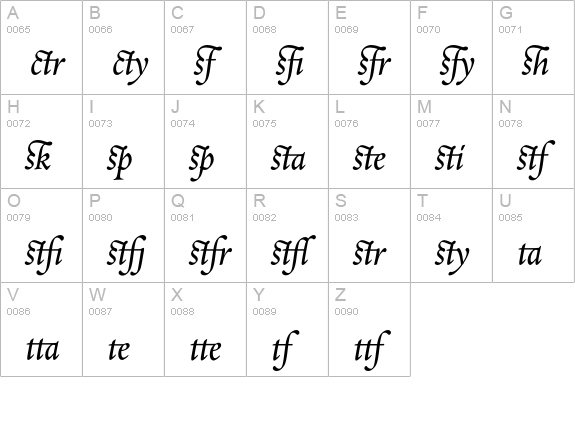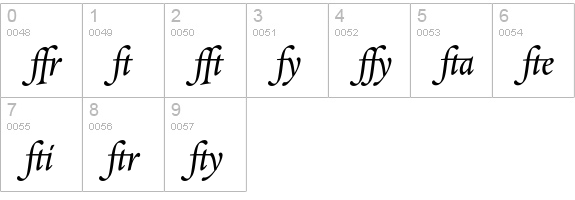
RequiemText-HTF-ItalicLigs Font Details
RequiemText-HTF-ItalicLigs is a stunning and elegant font that exudes a sense of sophistication and refinement. Its graceful curves and delicate serifs lend a touch of beauty to any design, making it perfect for projects that require a touch of class. This font features a unique combination of italicized letterforms and ligatures, which adds a stylish and dynamic element to your typography. The ligatures seamlessly connect characters together, creating a flowing and harmonious visual experience. With its versatile nature, RequiemText-HTF-ItalicLigs is suitable for a wide range of design projects, including logos, branding materials, invitations, and more. Its timeless appeal and attention to detail make it a go-to choice for designers who want to elevate their work. The best part? RequiemText-HTF-ItalicLigs is freely available to download at FontsMarket.com. This means that you can bring this exquisite font into your projects without breaking the bank. Whether you are a professional designer or a hobbyist, this font is a valuable addition to your creative arsenal. So why wait? Embrace the beauty and elegance of RequiemText-HTF-ItalicLigs today and take your designs to new heights. Download it for free at FontsMarket.com and let your creativity soar.